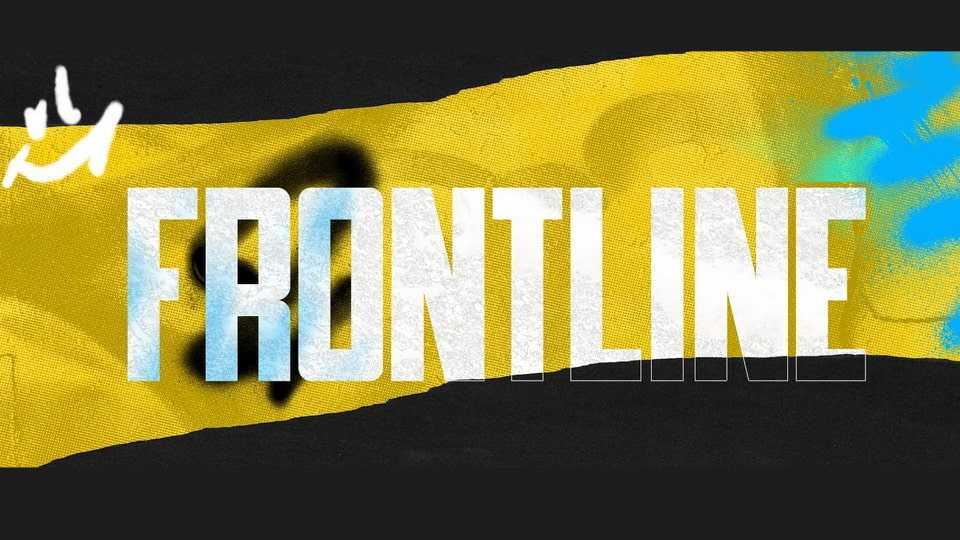
Download Frontline font, a bold, zealous and dynamic typeface, inspired by the exciting worlds of science-fiction, and all that they may entail. Designed for general use, this typeface dares to be a bold new addition to your arsenal.